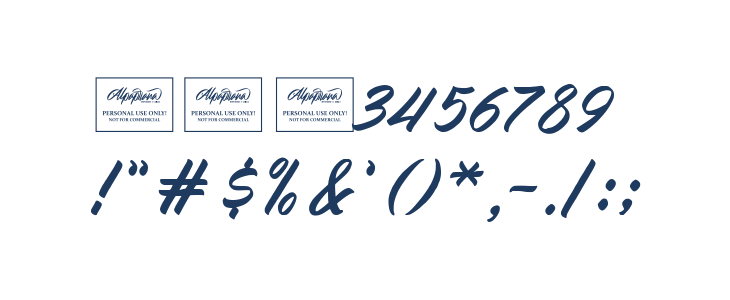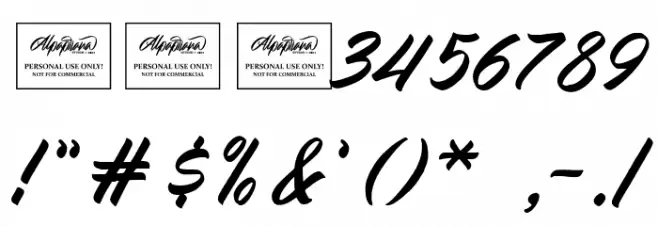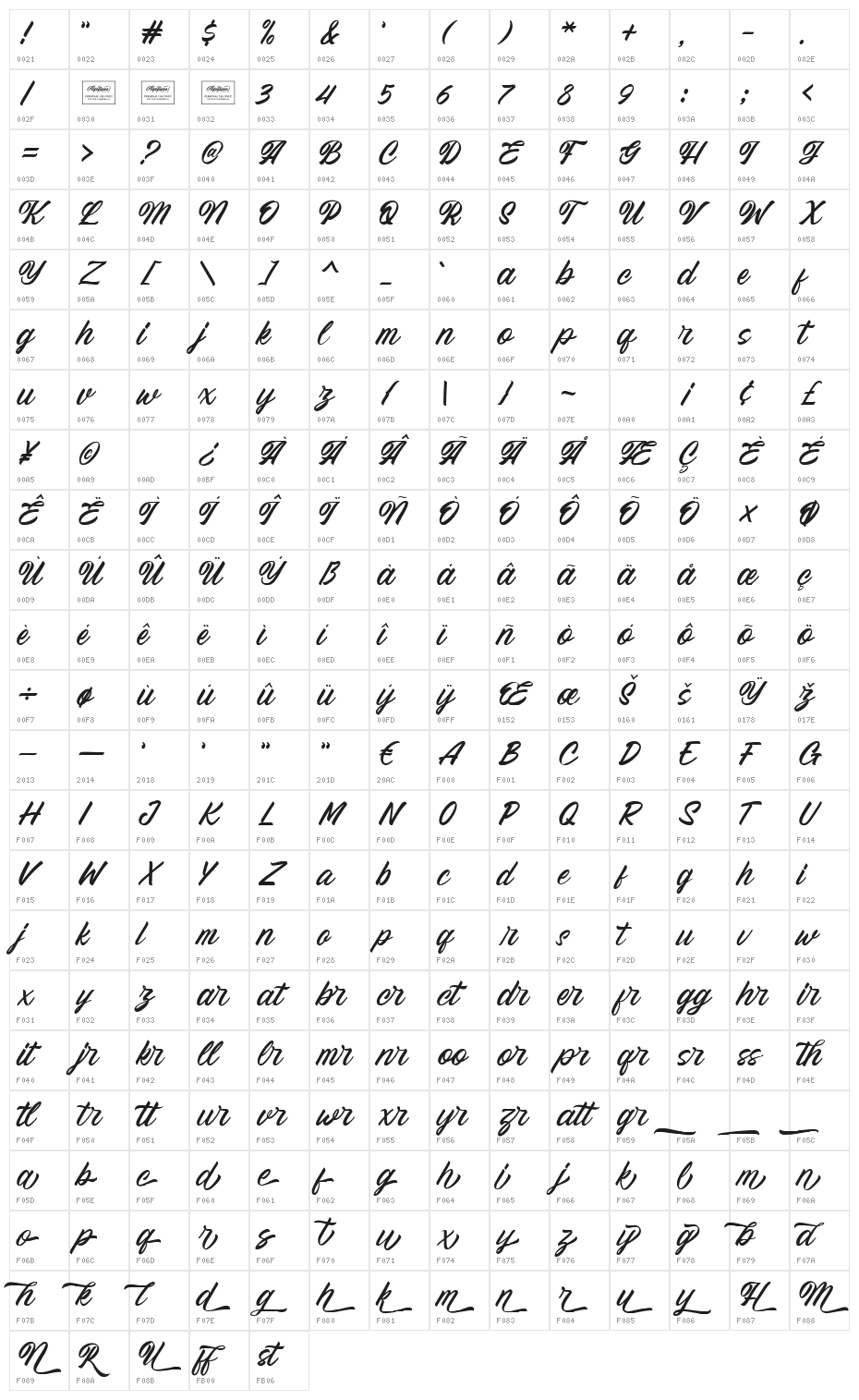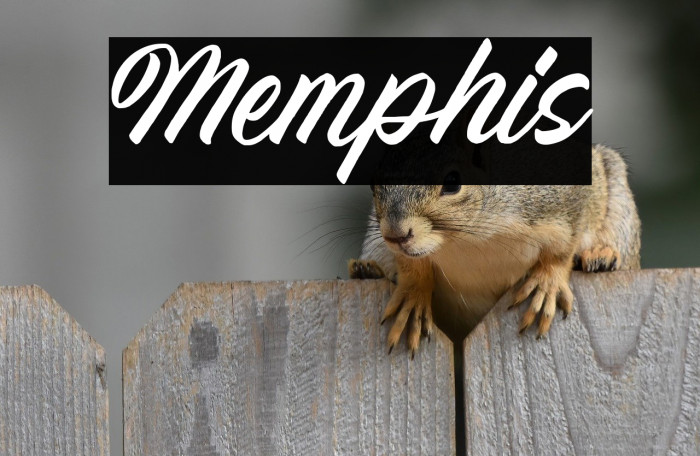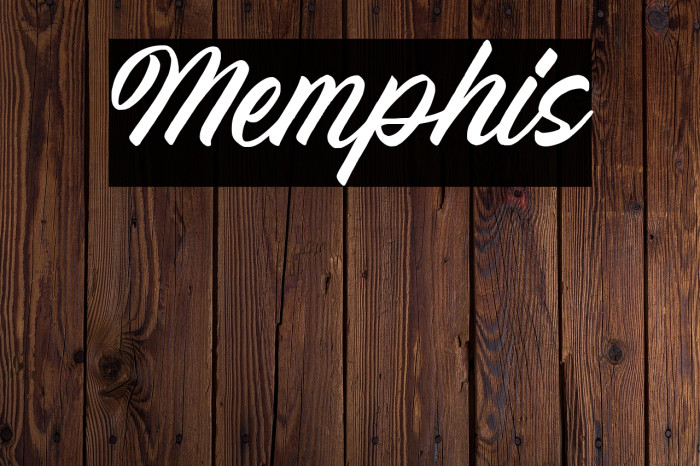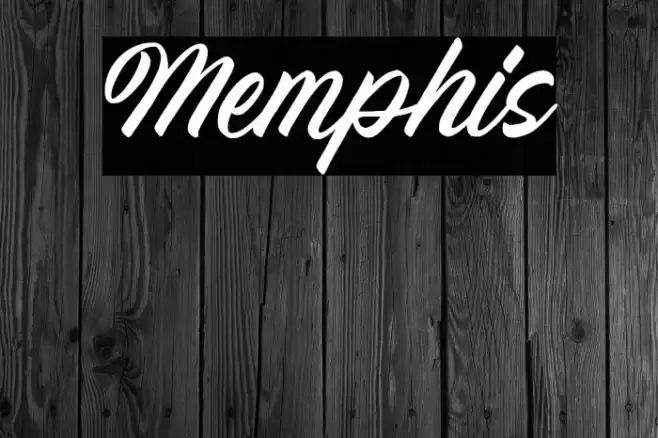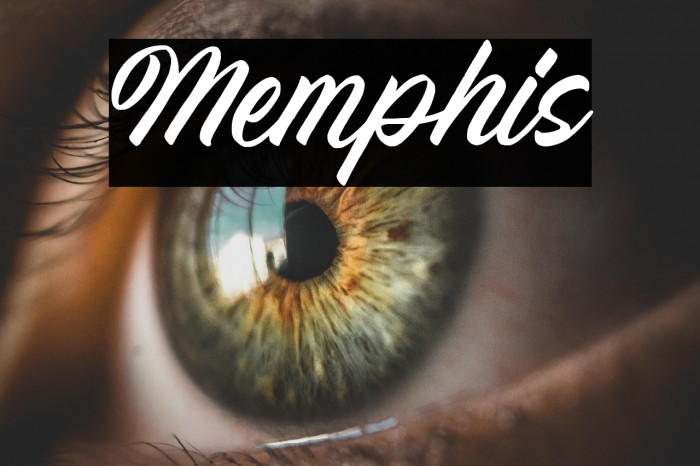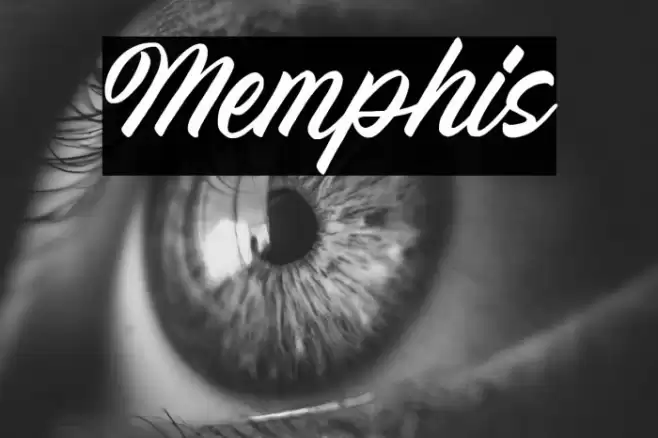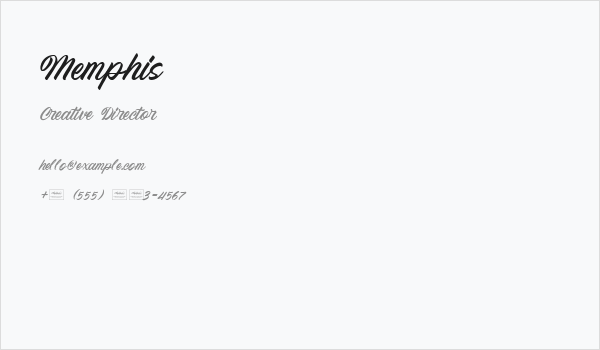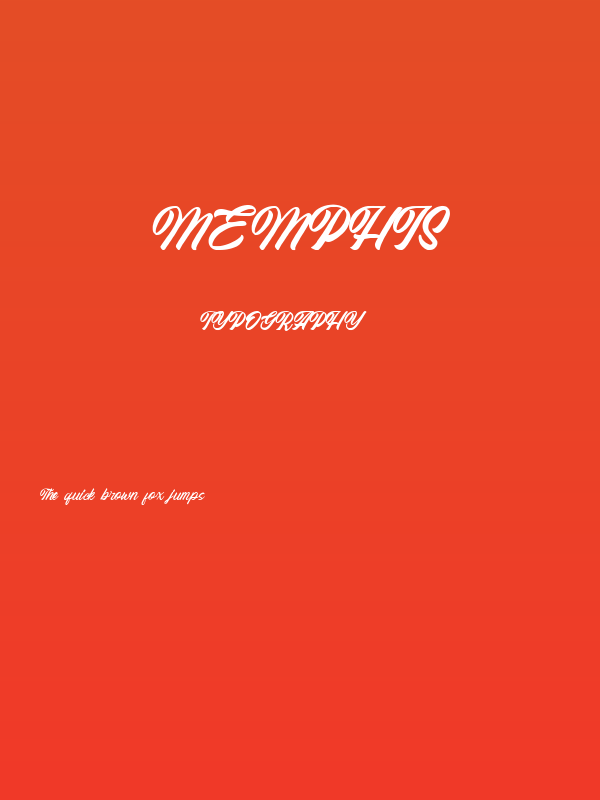
Memphis Font
Memphis Description
This font features a flowing, cursive style that exudes elegance and sophistication. The characters are interconnected, creating a seamless and fluid appearance. The uppercase letters are bold and striking, while the lowercase letters maintain a consistent rhythm and balance. The numerals and special characters are crafted with the same attention to detail, ensuring a cohesive look across all elements. This script font is ideal for projects that require a personal touch or a sense of luxury.